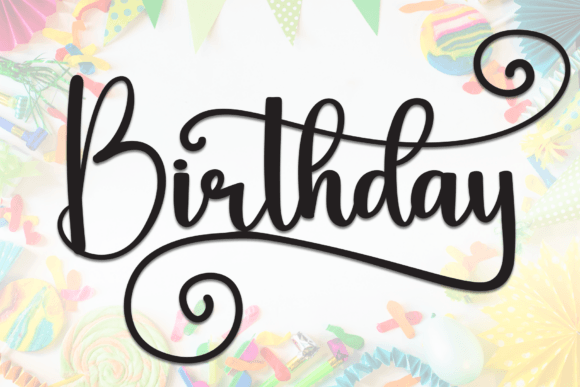
Adding a Pinch of Whimsy to Your Designs
Who among us hasn’t spent hours poring over design inspiration, searching for that perfect font to make our creations stand out? It’s in those moments of creative frustration that the perfect typography can be a game-changer. And for designers looking to infuse their projects with a dash of fun and joy, we’re excited to introduce the Birthday Font – a charming, hand-scripted display font that perfectly captures the essence of sweetness and love.
Whether you’re designing heartfelt wedding invitations, expressive greeting cards, or any artistic project seeking that extra special touch, the Birthday Font is the perfect tool for the job. Its versatility and playful charm make it an invaluable asset for designers looking to breathe life into their creative projects.
Birthday Font Key Features
- Unique Characteristics: Distinctive, playful script style with exaggerated letterforms and flourishes, perfect for adding a celebratory touch to birthday invitations, cards, and other designs.
- Font Weight and Style: Available in bold and regular weights, with a matching italic style for added versatility.
Birthday Font Review
Overall, I’d say Birthday Font is a decent choice for casual, celebratory designs. Here’s what I think works well: ✨ It’s easy to read, even at smaller font sizes, which is great for text overlays or short captions. ✨ The playful, handwritten feel is perfect for birthday-themed projects, like party invitations or social media posts. ✨ The font is also quite versatile, with a range of weights and styles that can add some visual interest to your design.
However, I do have some reservations: ⚠️ The font can feel a bit generic, and it may not stand out from other similar fonts in a crowded market. ⚠️ Some of the characters, like the lowercase “a” and “g”, can be a bit awkward-looking at certain angles. ⚠️ The font doesn’t come with a lot of customization options, which might limit its use in more complex designs.
Overall, I’d give Birthday Font 3.5 out of 5 stars. It’s a solid choice for quick, casual designs, but it may not be the best fit for more sophisticated projects.
- Pros:
- Easy to read
- Playful, handwritten feel
- Versatile with multiple weights and styles
- Cons:
- May feel generic
- Some characters can be awkward-looking
- Limited customization options
Use the Birthday Font to create eye-catching birthday invitations, party decorations, and social media graphics.
Experiment with different font sizes, colors, and styles to add a personal touch to your designs.
Combine the Birthday Font with other creative elements, such as balloons, confetti, and candles, to create a festive atmosphere.